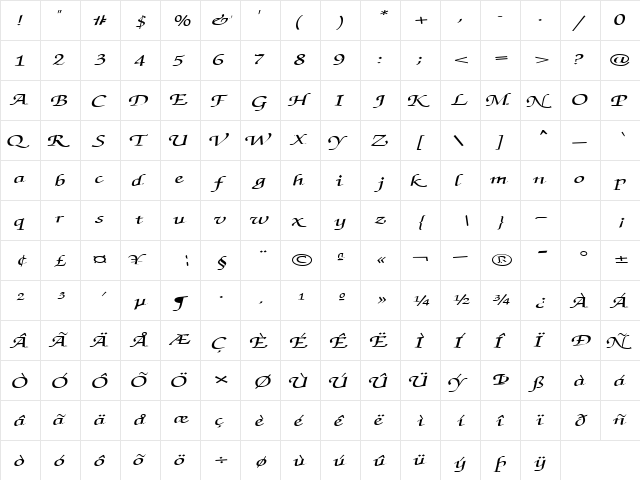
Christian Regular
Design Context for Christian Typeface
Christian is a composed and adaptable typeface that performs quietly and consistently across a wide range of design contexts.